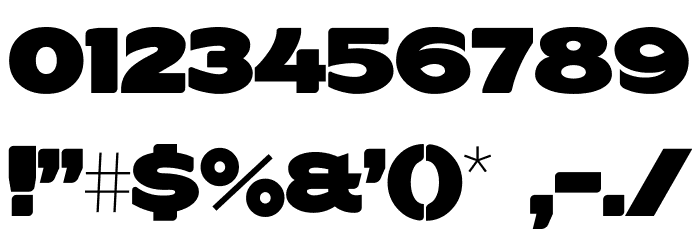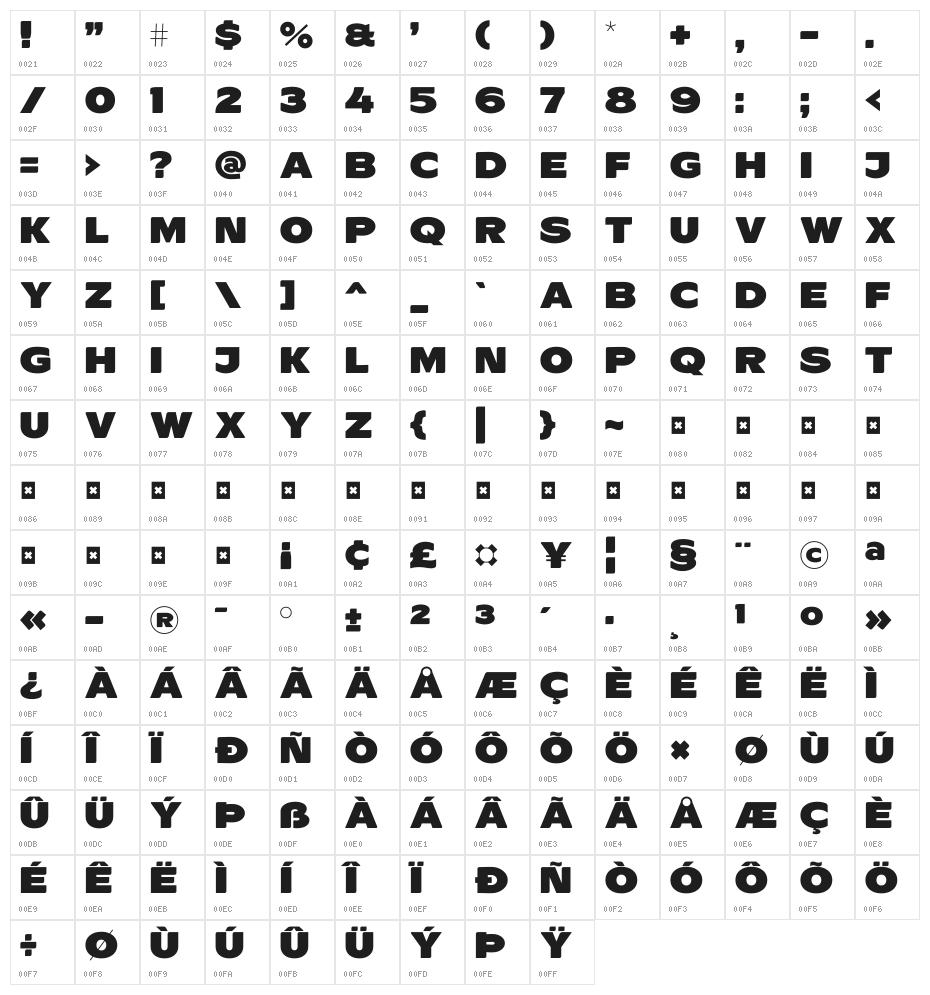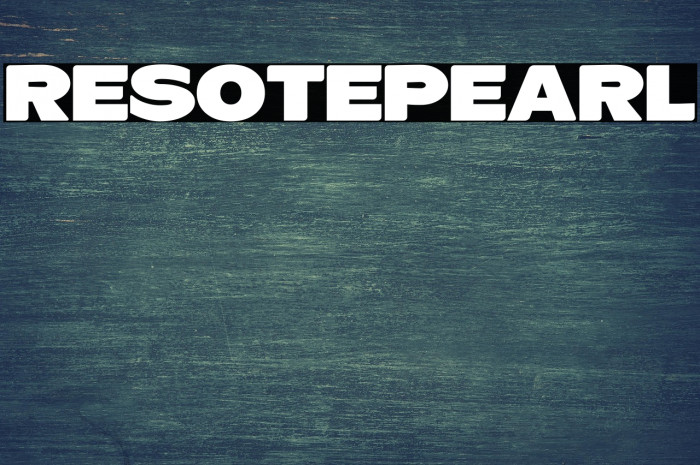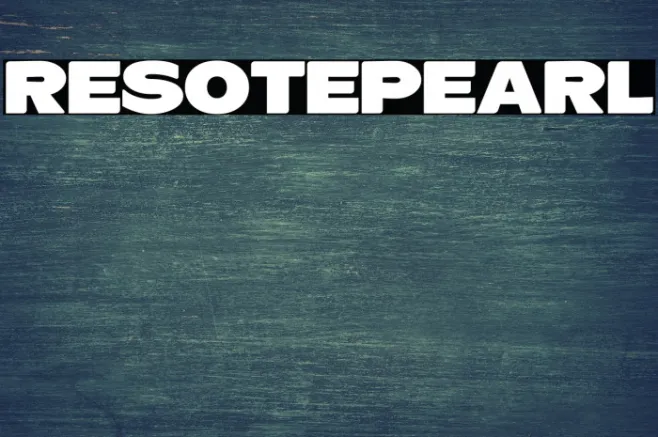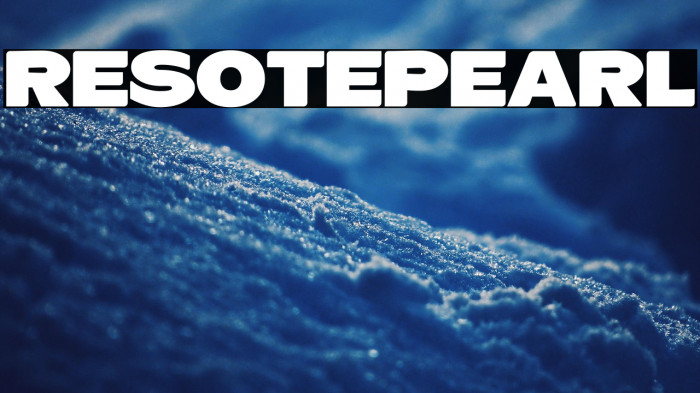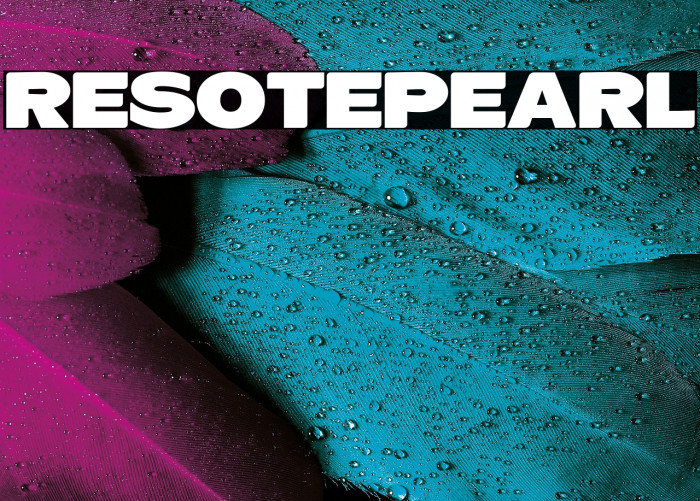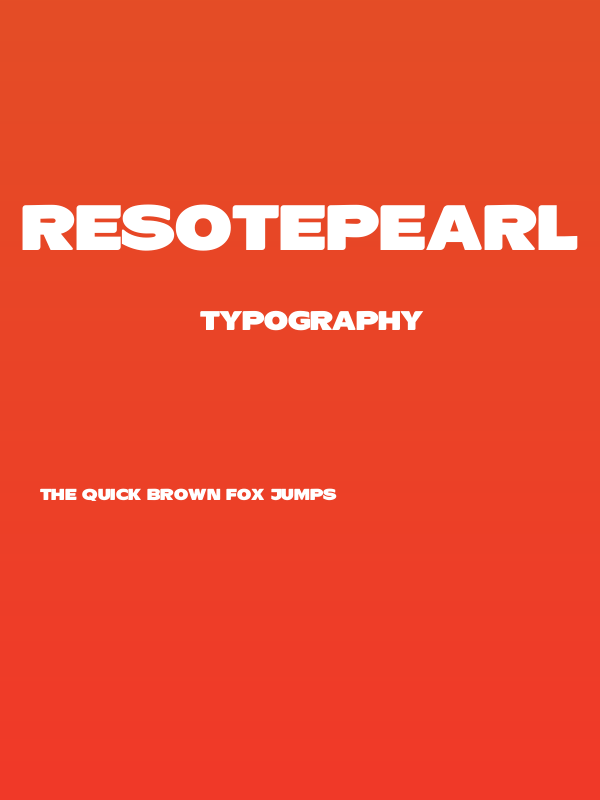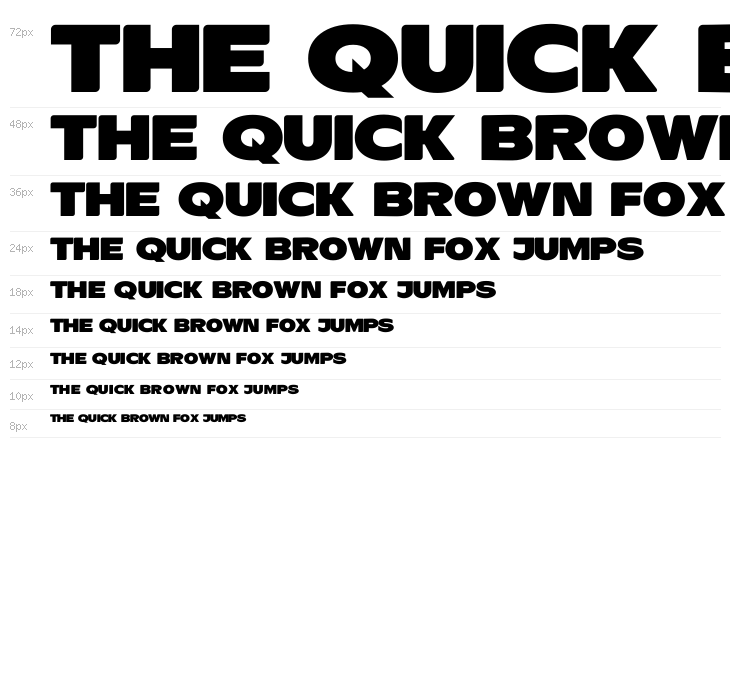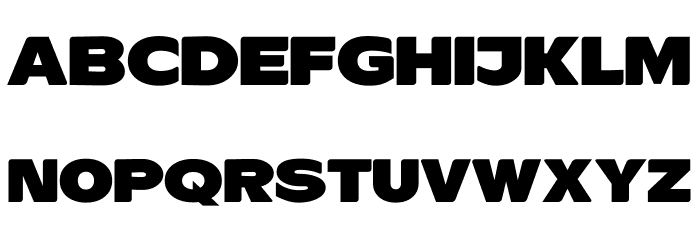
ResotEPearl Font
ResotEPearl Description
This bold and impactful font features thick, uniform strokes that convey strength and modernity. The characters are wide and have a strong presence, making them ideal for attention-grabbing designs. The uppercase letters are particularly striking, with a geometric influence that adds a contemporary feel. The numbers and special characters maintain the same boldness, ensuring consistency across all text elements. This font's design is clean and straightforward, with a focus on readability and visual impact. Its bold nature makes it suitable for various design applications where emphasis is needed.
| Proposed Projects | Ideal for headlines, posters, branding, and advertising where a strong visual impact is needed. |